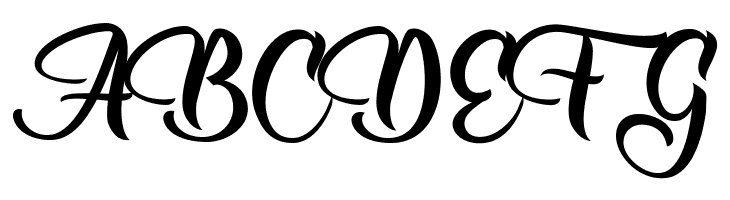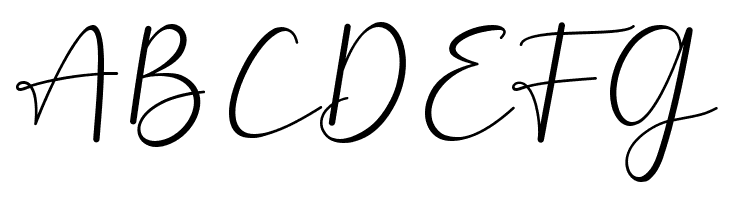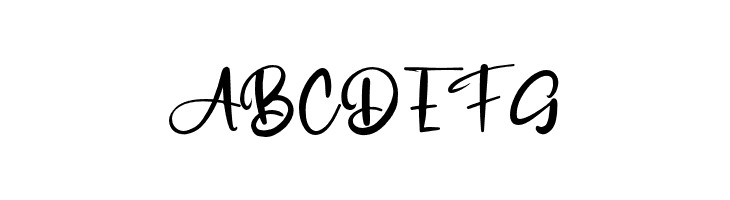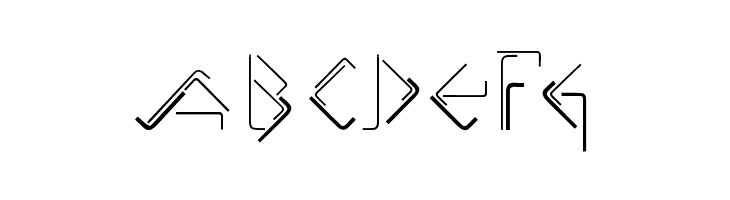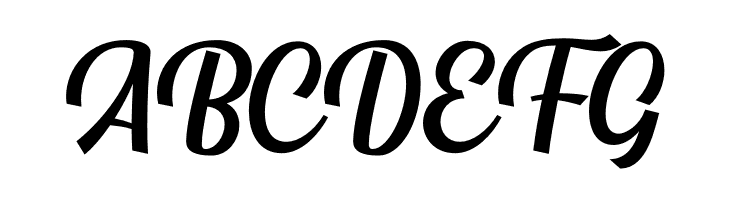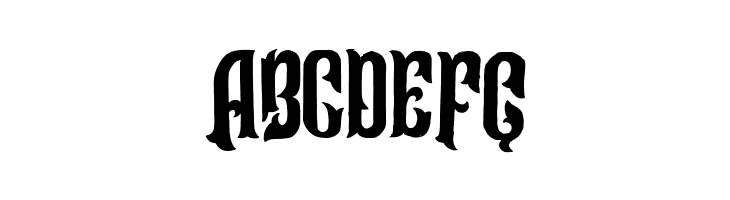
• Allenia Regular
An elegant, high-contrast typeface with a modern and sophisticated design.
• Allenisa - Personal Use
A playful and elegant handwritten script font with fluid, interconnected strokes.
• AllenKeys
A futuristic, angular font with sharp edges and geometric shapes.
• Allentown
A bold, elegant script font with flowing curves and stylish flourishes.
• Alleria
A bold, decorative font with Gothic-inspired details and ornate styling.
• Allertown
A lively and flowing script font with elegant curves and smooth transitions.
• Allertown
A playful and elegant script font with a handwritten style.
• Allesia
A flowing, elegant cursive font with graceful loops and curves.
• AllesNurGeklaut
A whimsical decorative font with playful illustrations for each character.
• Allessa Personal Use
An elegant, flowing script font with ornate, cursive letterforms.